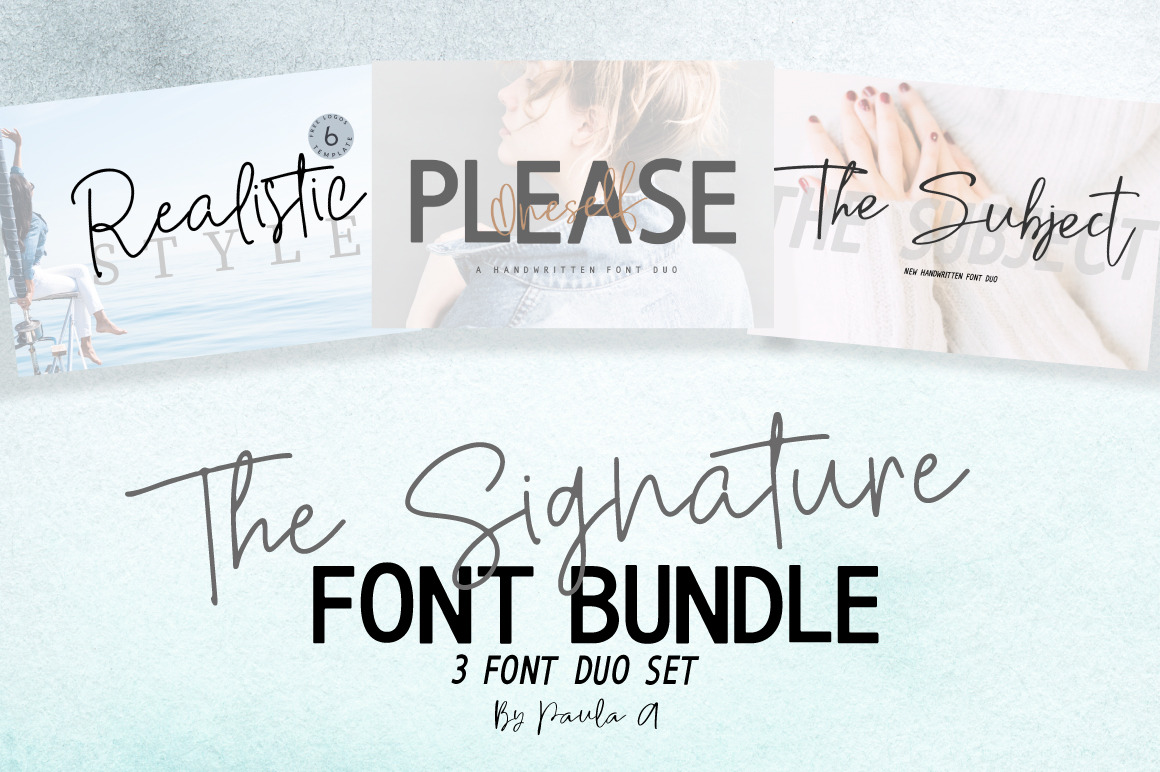
The Signature Font Bundle
all you need to create gorgeous logo's & branding, quotes for social media, web design, wedding card and so much more.
THESE FONTS ARE INCLUDED
-Realistic Style https://crmrkt.com/Rze2E4 + 6 Logos
-Please Oneself https://crmrkt.com/D6O30l Font Duo with get 73 Ligatures
-The Subject https://crmrkt.com/qXbMrq + 8 Qoutes